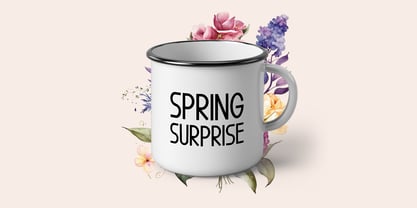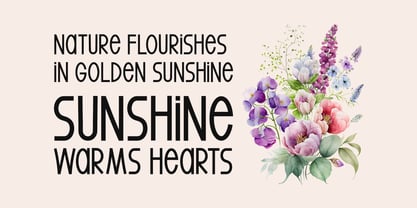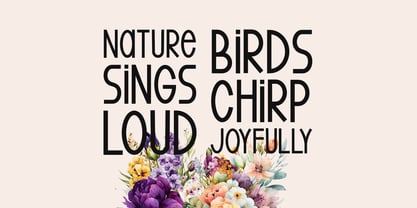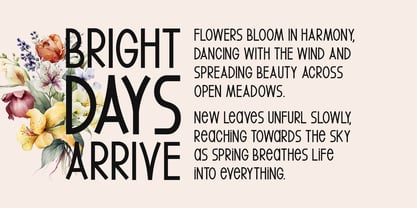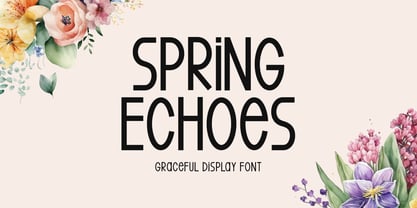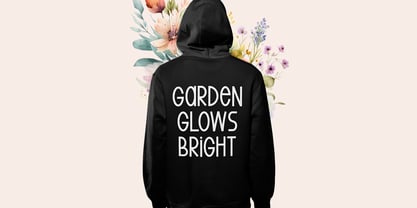
Spring Echoes
by Seemly Fonts
The Spring Echoes Font Family was designed by Md Shohail Bhuian and published by Seemly Fonts. Spring Echoes contains 1 styles.
Spring Echoes is a graceful display font that captures the essence of elegance and charm. Its stylish and flowing letterforms make it a wonderful choice for everything from stationery and logos to apparel designs and paper goods. Whether you’re creating stunning website headers, music covers, flyers, or posters, this versatile font ensures your designs stand out with a refined and artistic touch. Perfect for both digital and print projects, "Spring Echoes" brings a sense of beauty and sophistication to every creation.